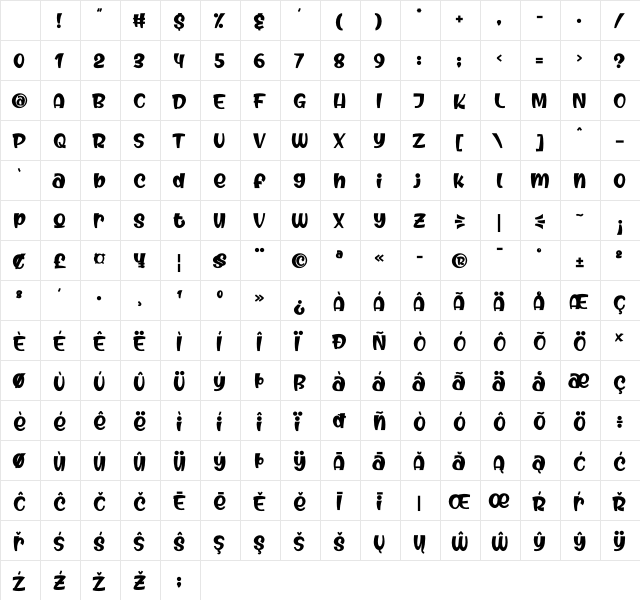
Complete Best Kids Regular glyph index. Displaying only characters natively supported by Best Kids Regular font.
Best Kids has an approachable, lighthearted character - its loose, expressive forms are well-suited to children's content, casual branding, and fun-first design.
Font Pairing: Pairs well with a rounded or humanist sans for body copy, maintaining the friendly tone without relying on Best Kids to carry extended reading.
Pro Tip: Use Best Kids at larger display sizes where its expressive character can land. Pair with a clean, simple sans for body copy to maintain readability.